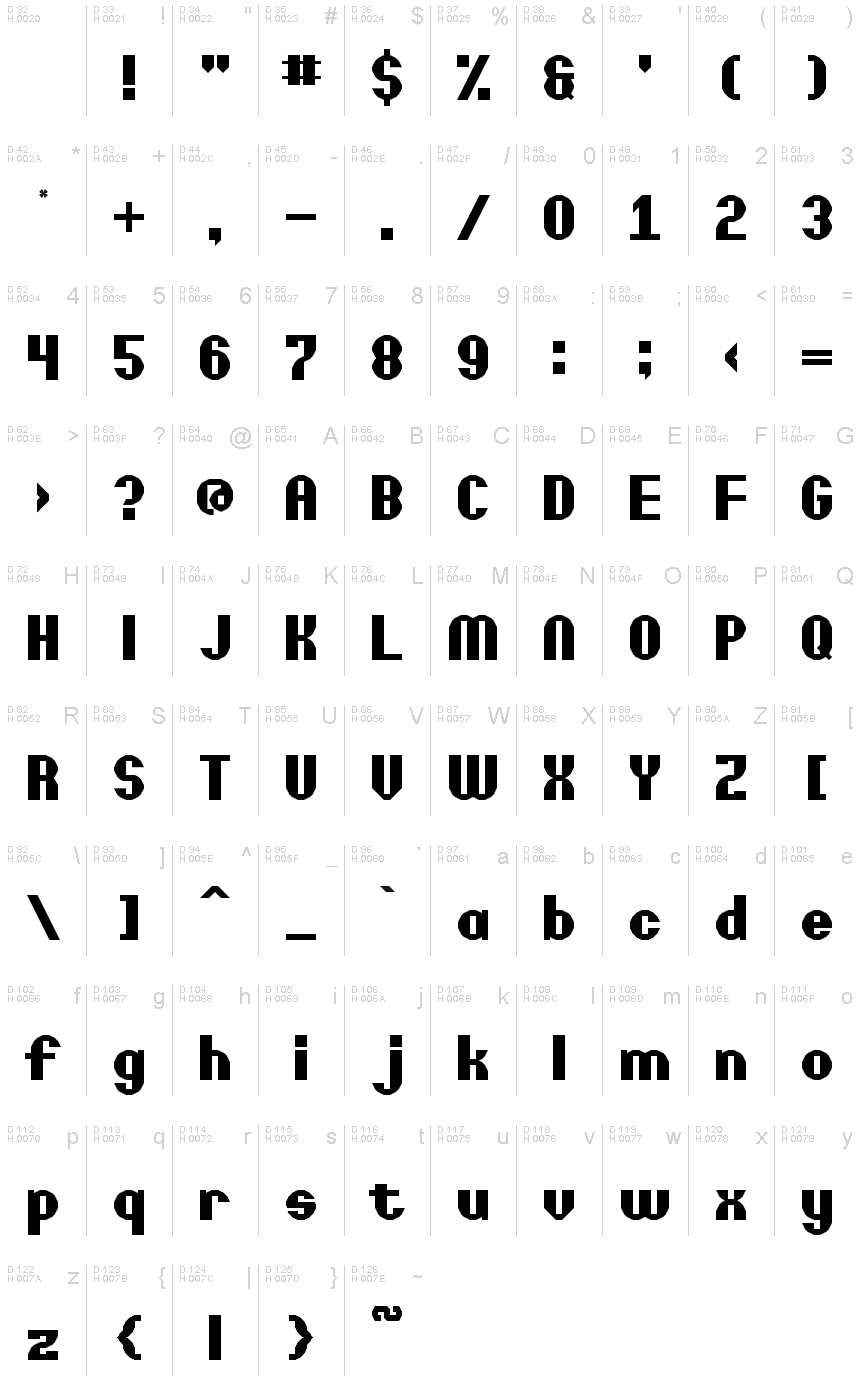
Cartoon Riot Regular
“Cartoon Riot” was built with FontStruct
Designer description: An attempt to do large rounded shapes using only the stock FS bricks.